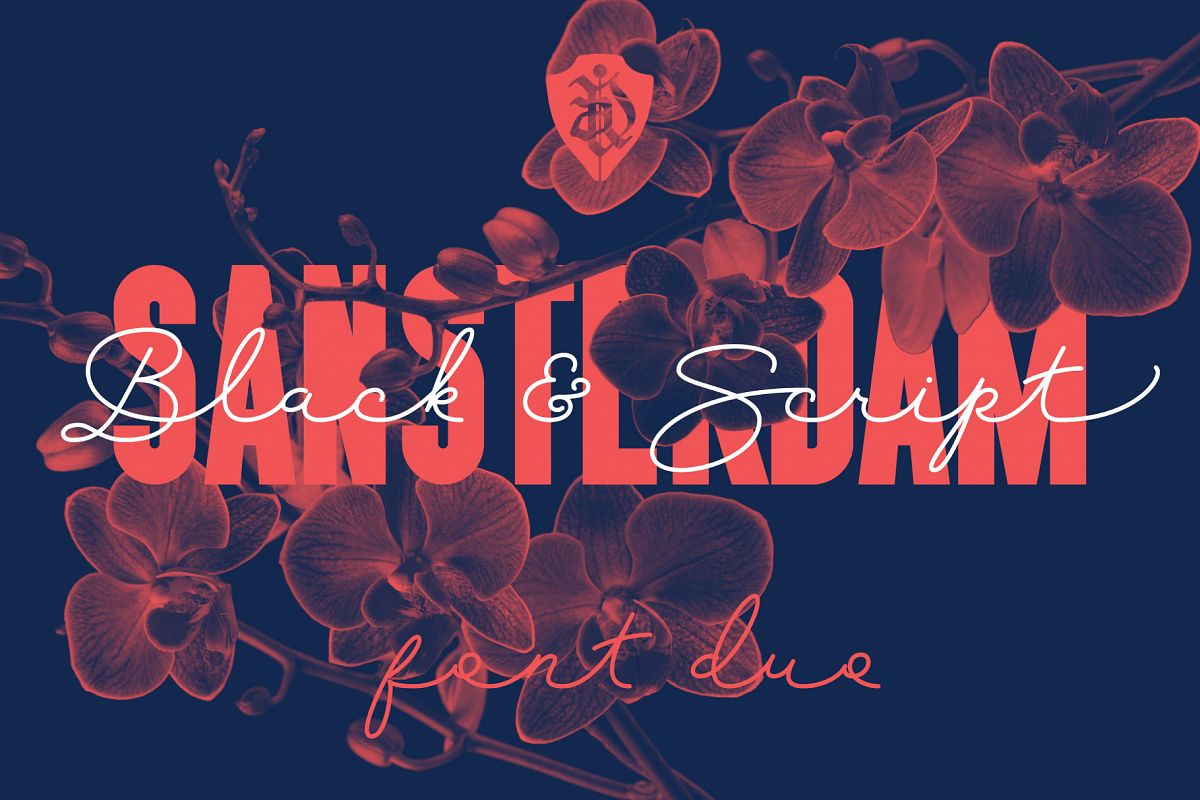
Sansterdam Black & Script
Sansterdam is a modern geometric condenced grotesque font family.
It's great for titles, posters, logos. Condensed font allows to include more information in one line. Sansterdam Black has special Deco version with circle uppercase letters and oldstyle numbers for vore vintage feeling. Also Sansterdam has signature script font for more unforgettable combinations!This pack include 3 fonts:
Font looks amazing as alone words and as full text blocks. Also it good for bright captions and logos.Language support more than 30 languages: Afrikaans, Basque, Bosnian, Catalan, Croatian, Czech, Danish, Dutch, English, Estonian, Filipino, Finnish, French, Galician, German, Indonesian, Irish, Italian, Latvian, Lithuanian, Malay, Norwegian Bokmal, Portuguese, Romanian, Russian, Slovak, Slovenian, Spanish, Swahili, Swedish, Zulu etc.Download Sansterdam for your next project today!